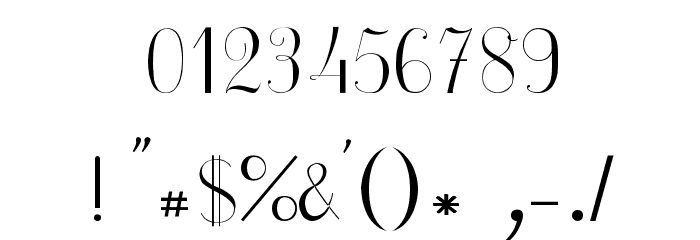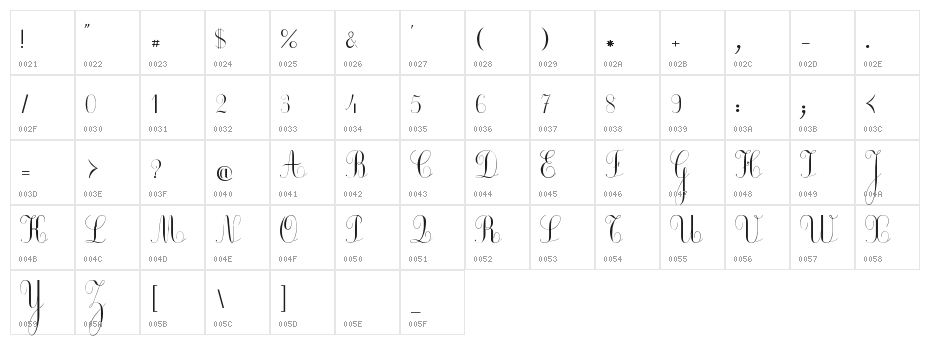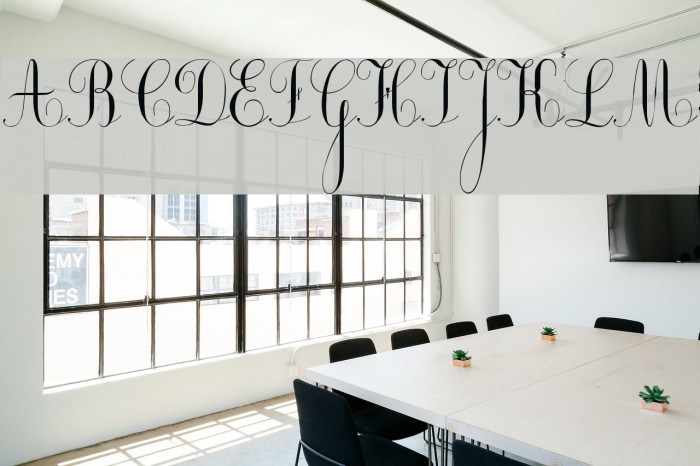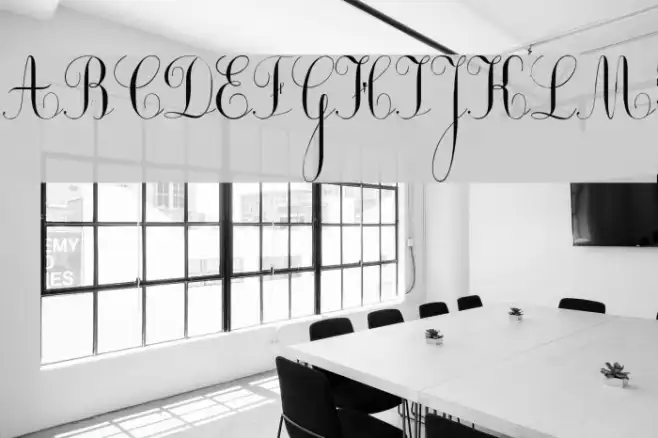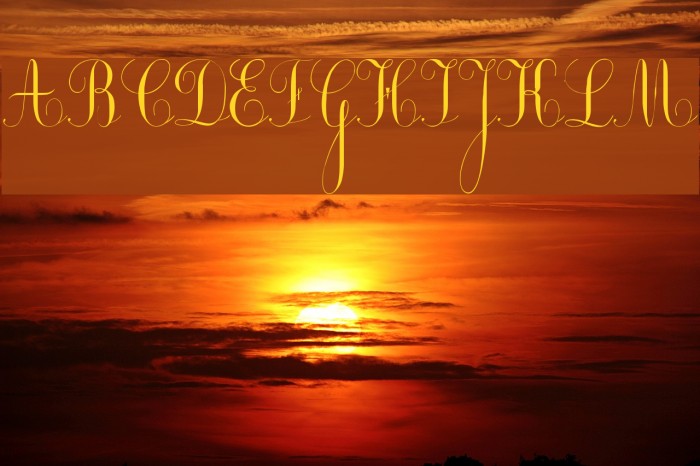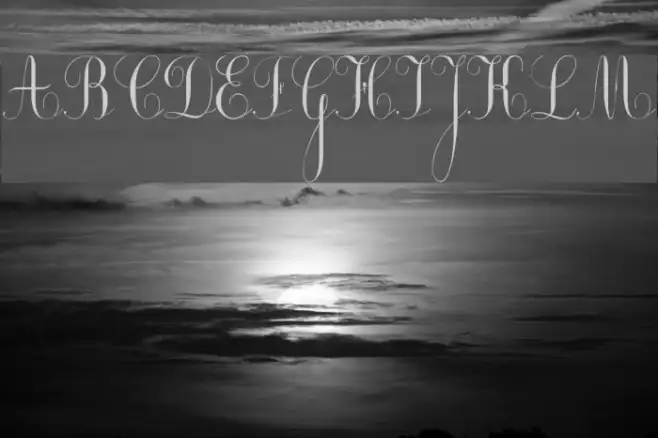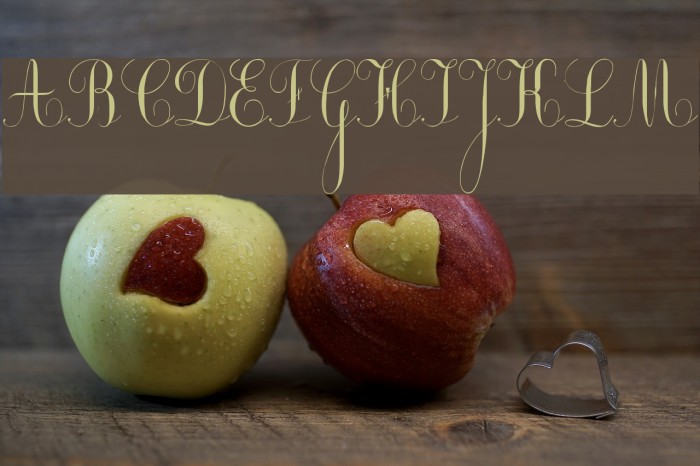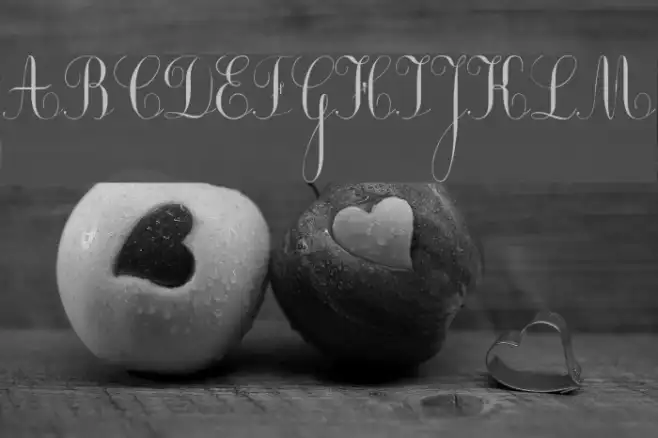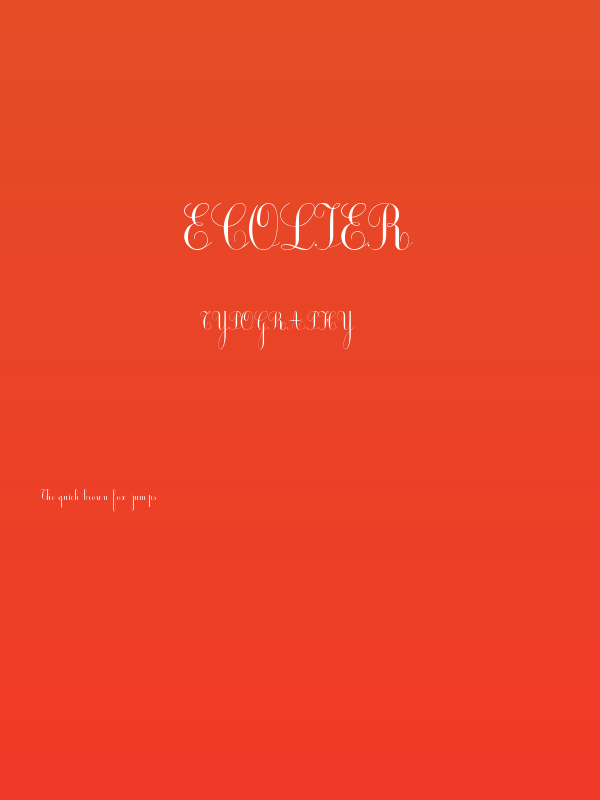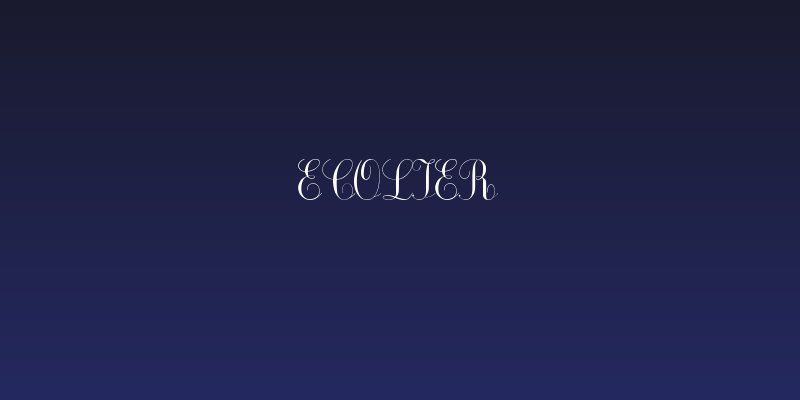
Ecolier Font
Ecolier Description
This font features an elegant and sophisticated script style, characterized by its flowing, cursive letters with intricate loops and swirls. The uppercase letters are particularly ornate, with each character displaying unique flourishes that add a touch of luxury and refinement. The lowercase letters maintain a consistent style, offering a harmonious blend of readability and decorative flair. The numerals are designed with a similar elegance, ensuring they complement the overall aesthetic. Special characters are thoughtfully crafted to match the font's graceful appearance, making it suitable for a variety of creative applications.
| Use Case | Logos, Invitations, Decorative Headlines |
| Proposed Projects | Ideal for wedding invitations, luxury branding, elegant stationery, and decorative headlines. |